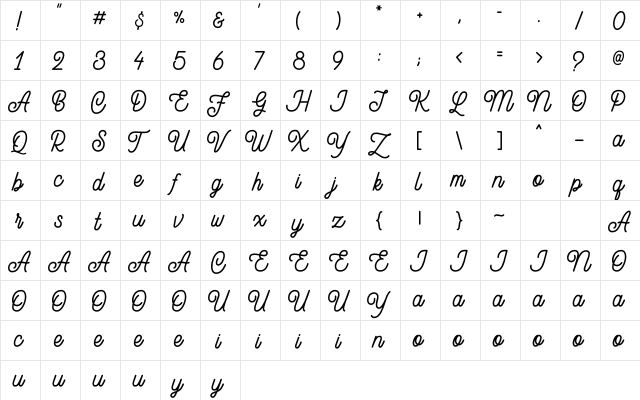
Yesterday Dream Script
Design Context for Yesterday Dream Typeface
Yesterday Dream brings a calligraphic fluidity to the page — its connecting strokes and expressive curves give it an unmistakably human quality.
Font Pairing: Combine Yesterday Dream with a simple geometric sans for maximum contrast — the tension between flowing curves and clean structure is a classic typographic pairing.
Pro Tip: Use Yesterday Dream for short runs of text — names, titles, or taglines. Extended body copy in script faces tires the eye quickly.